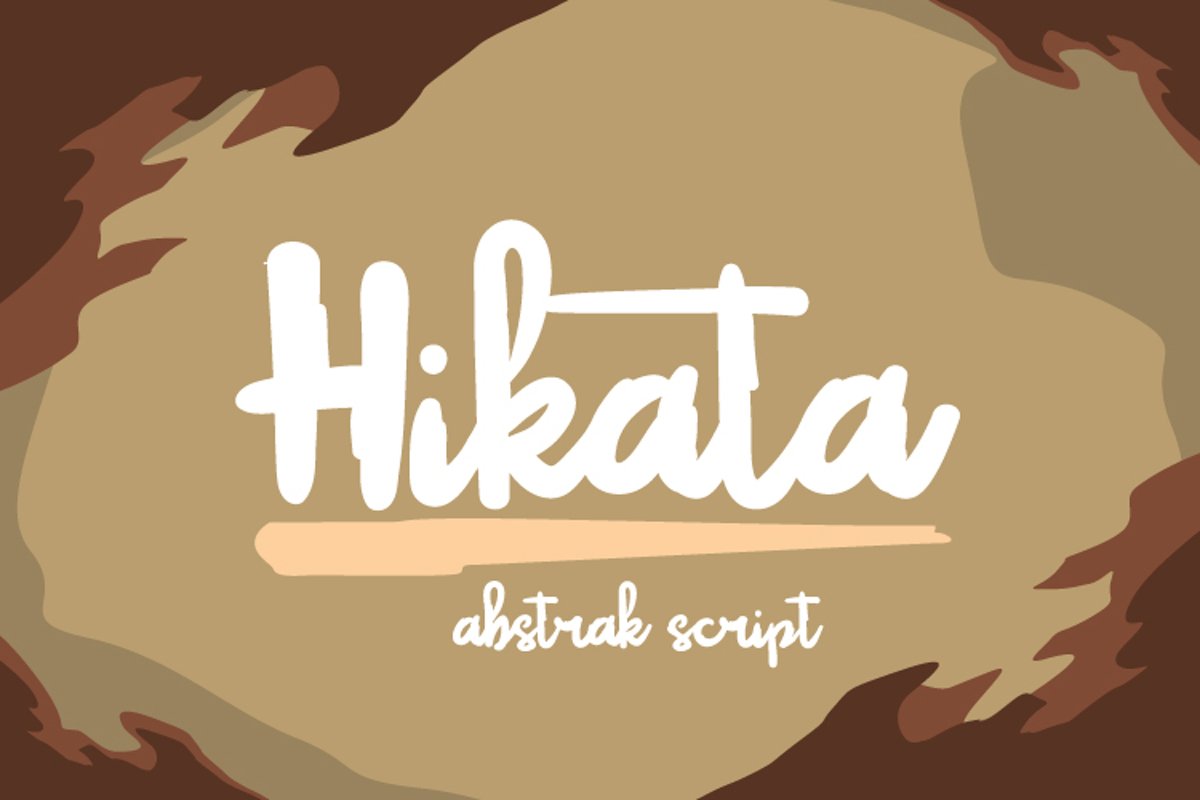
Hikata
Hikata  a display font. This font
will looks awesome and amazing in many way to your latest project.
Hikata is perfect for many different
project such as logos & branding, invitation, stationery, wedding
designs, social media posts, advertisements, product packaging, product
designs, label, photography, watermark, special events or anything.
- Character set A-Z
- Character set a-z
- Support multilanguage glyphs